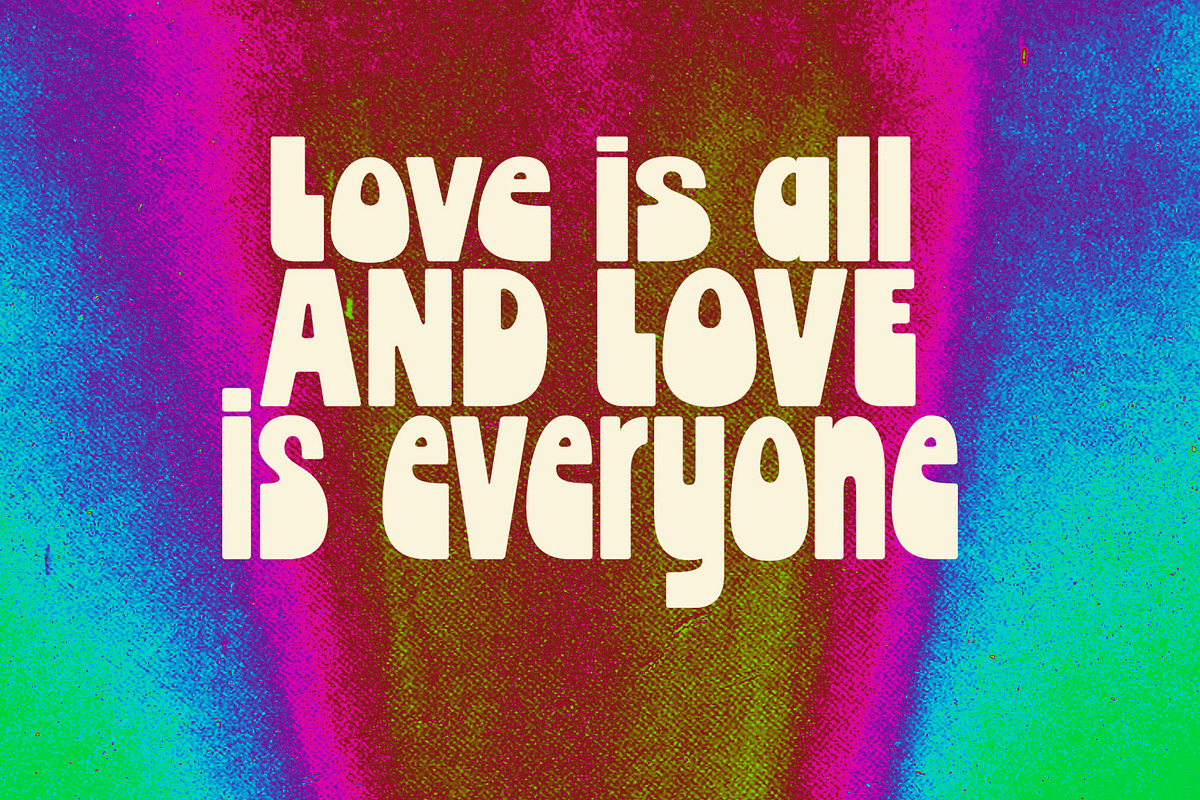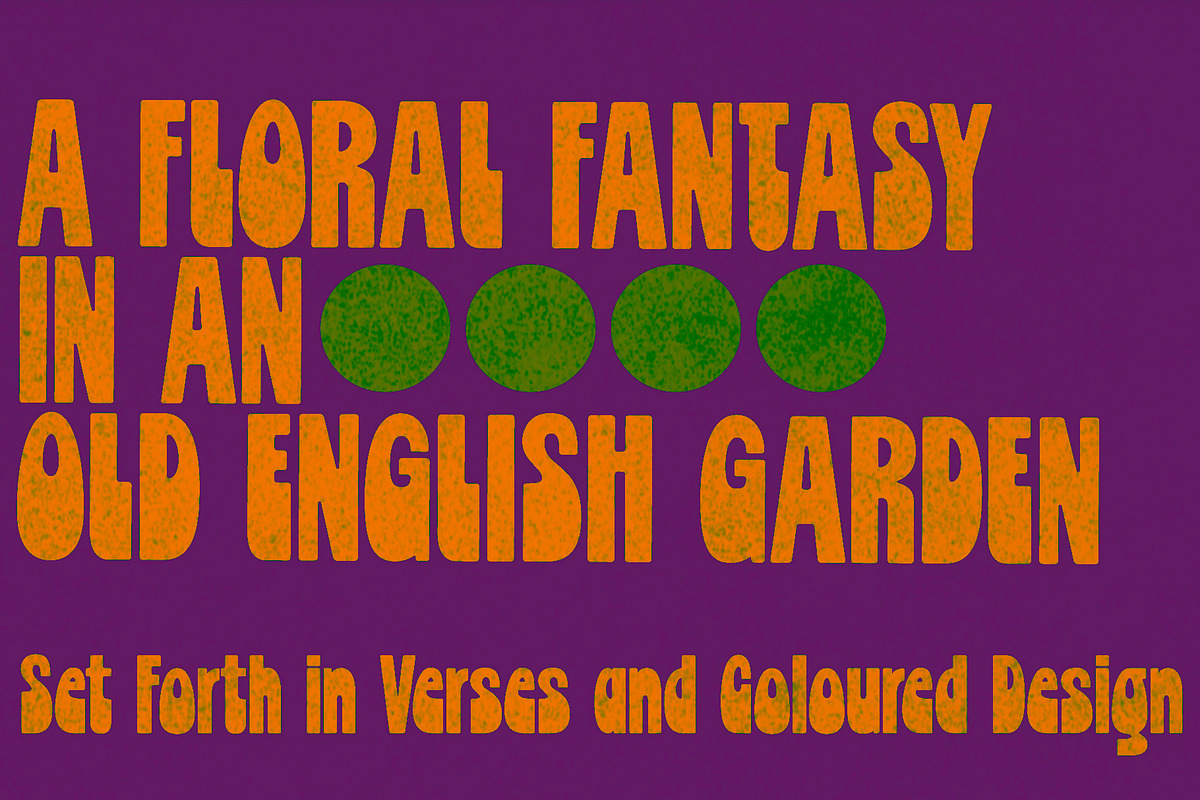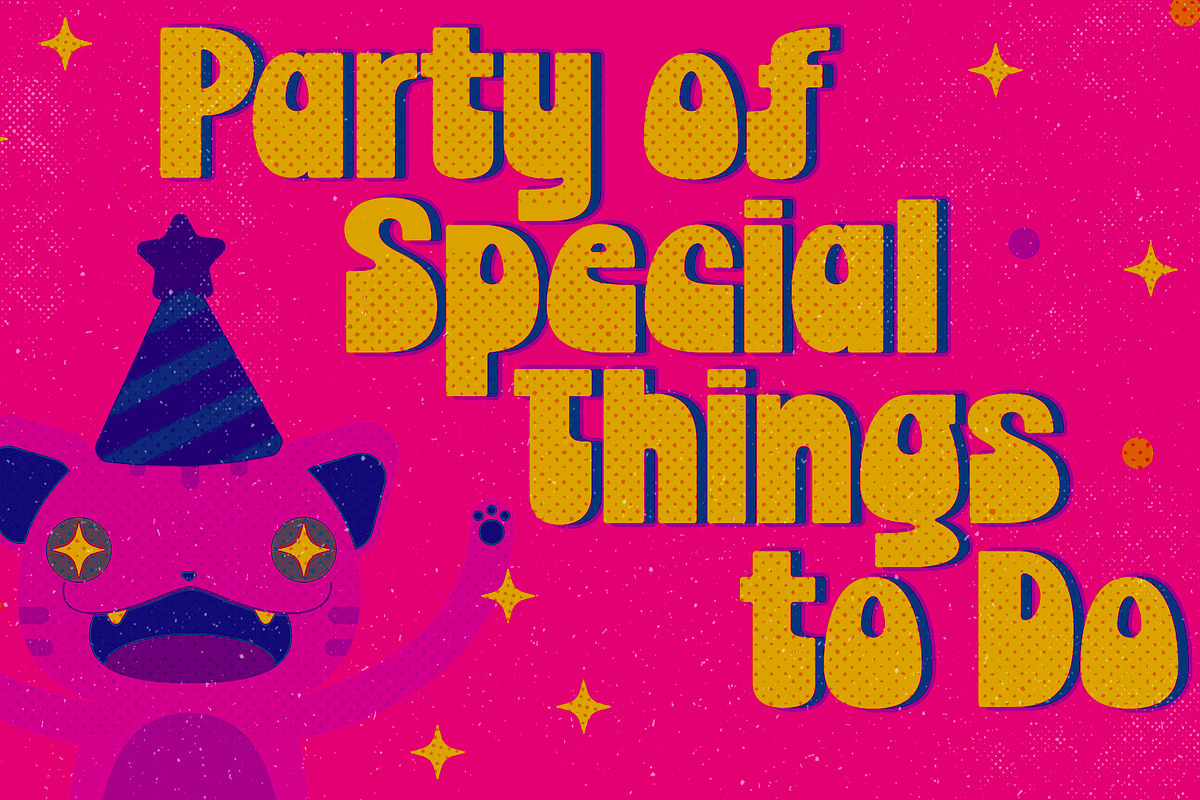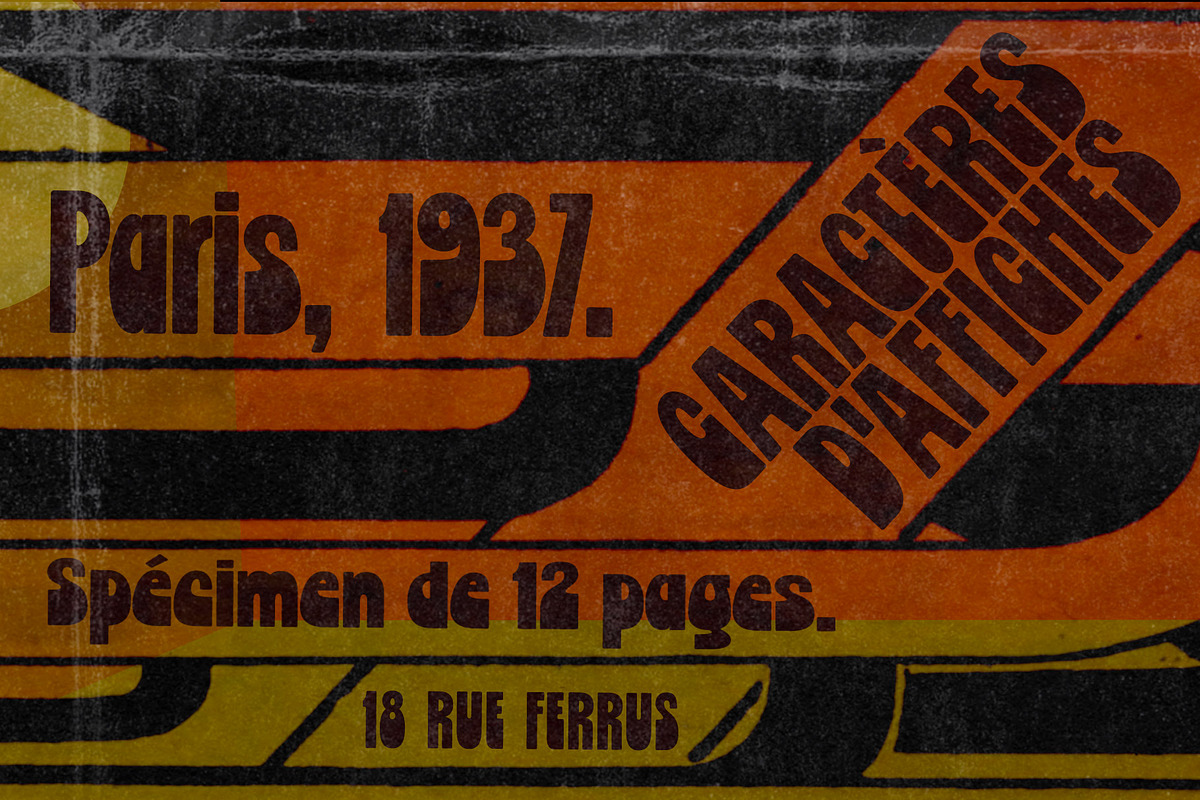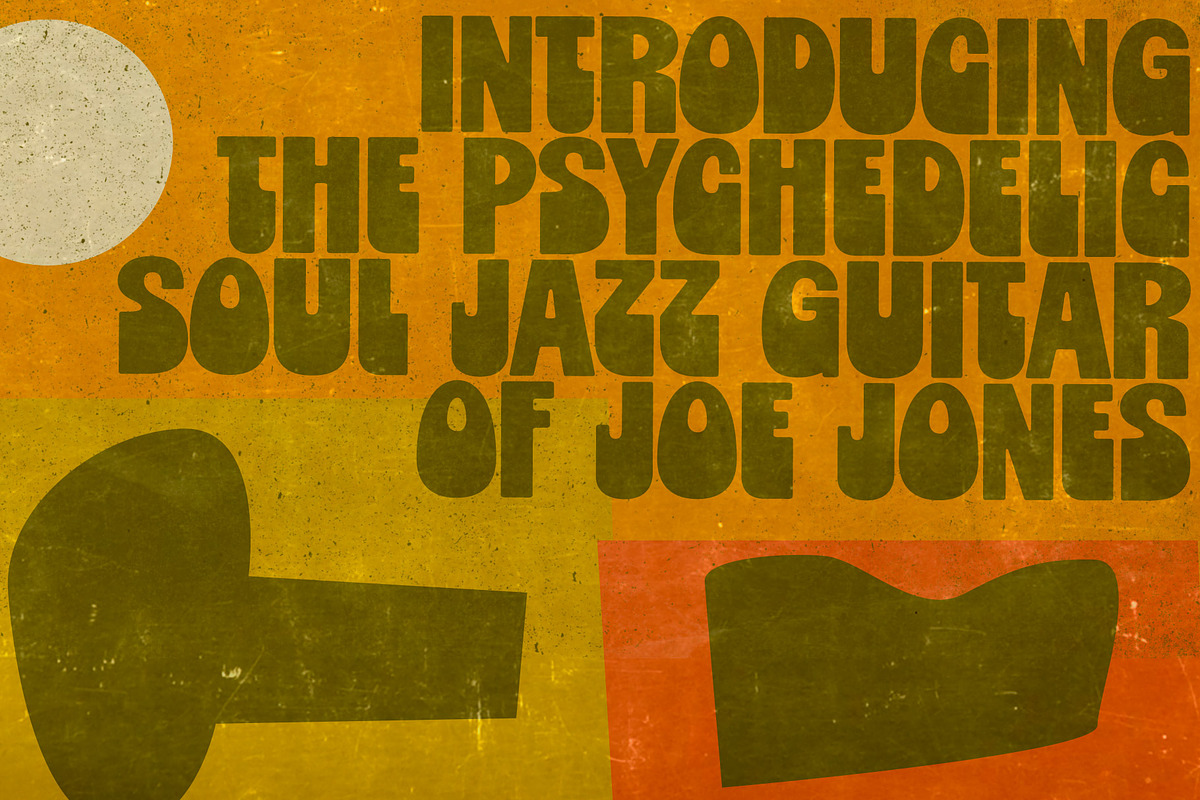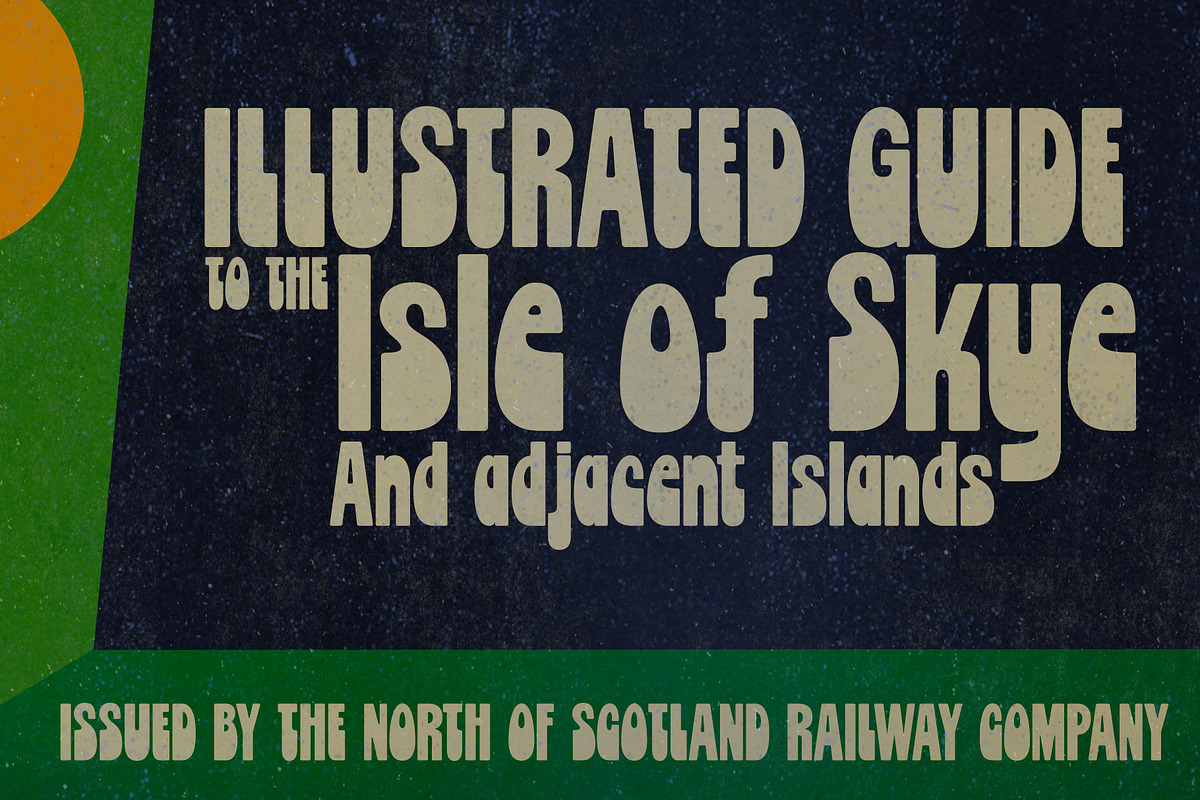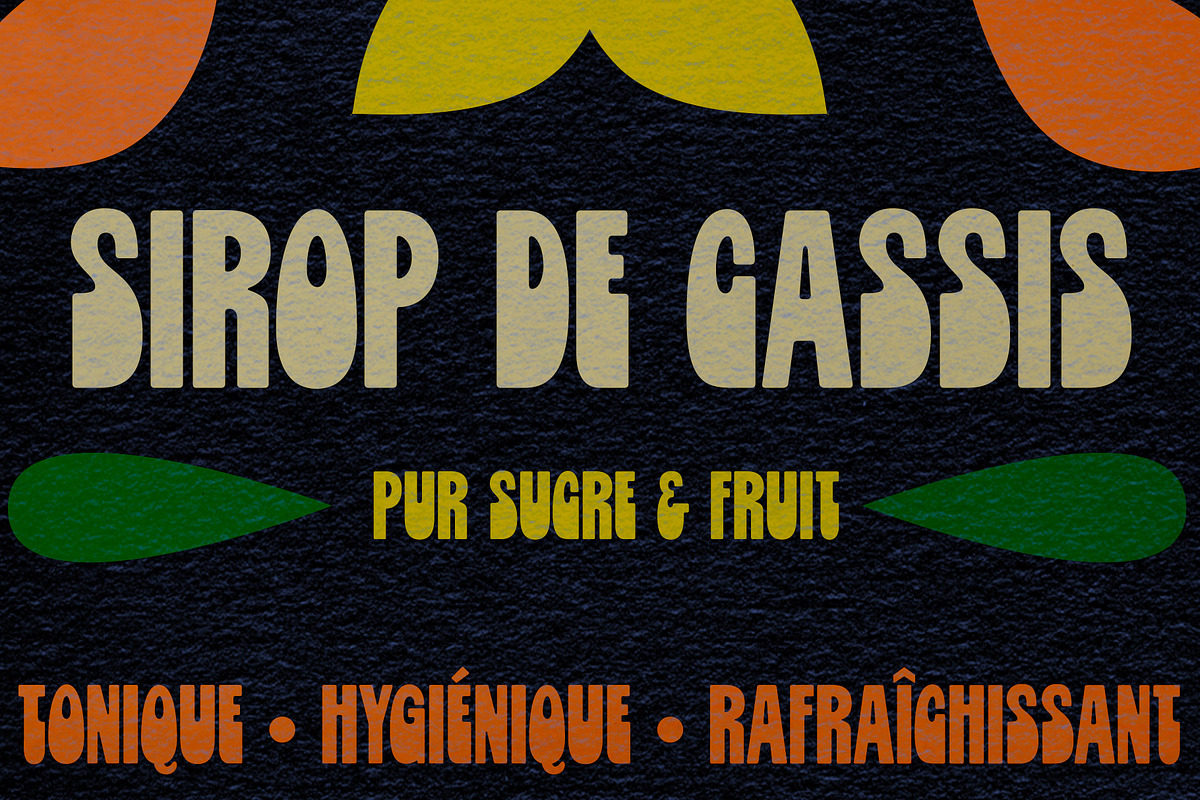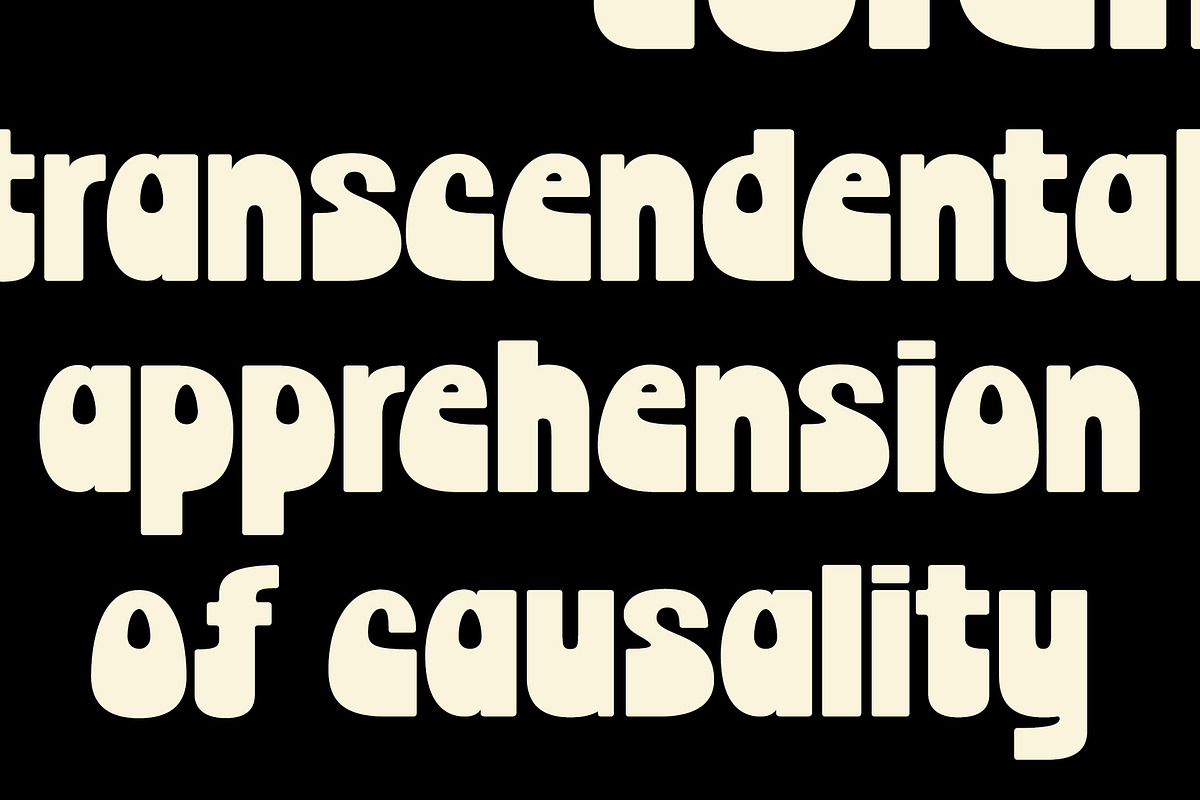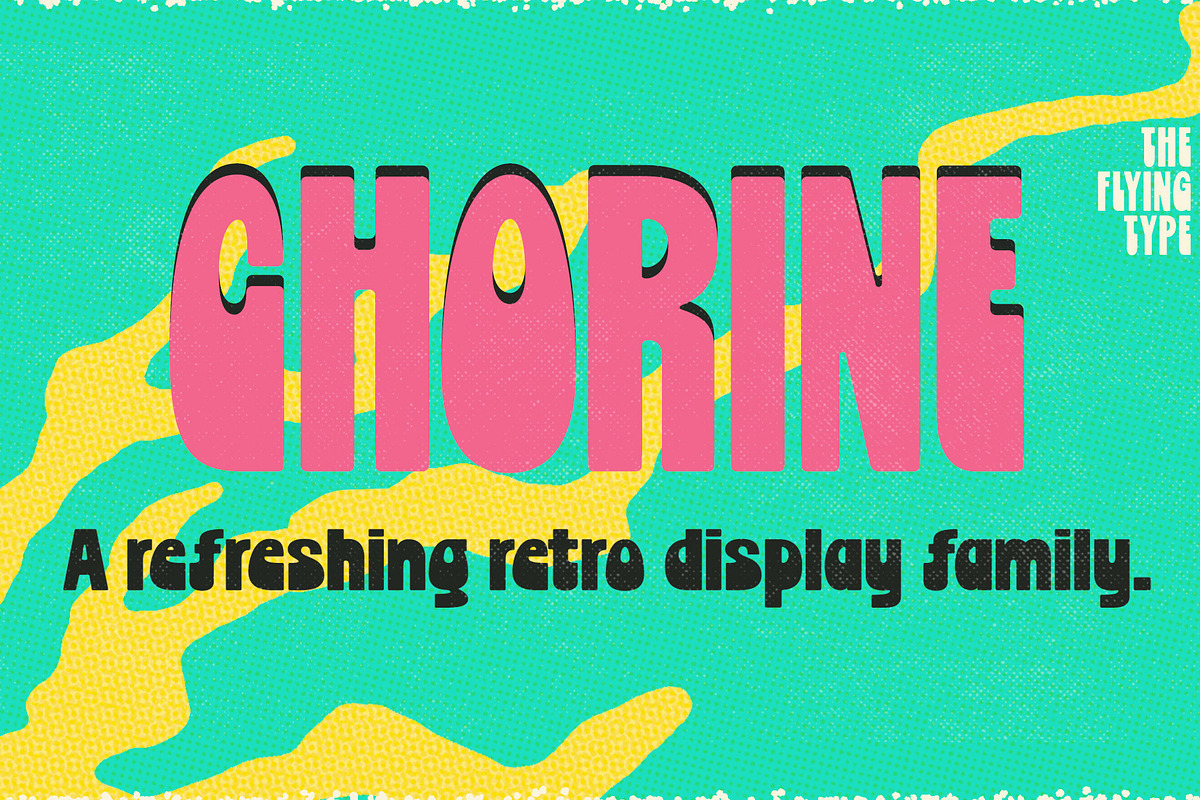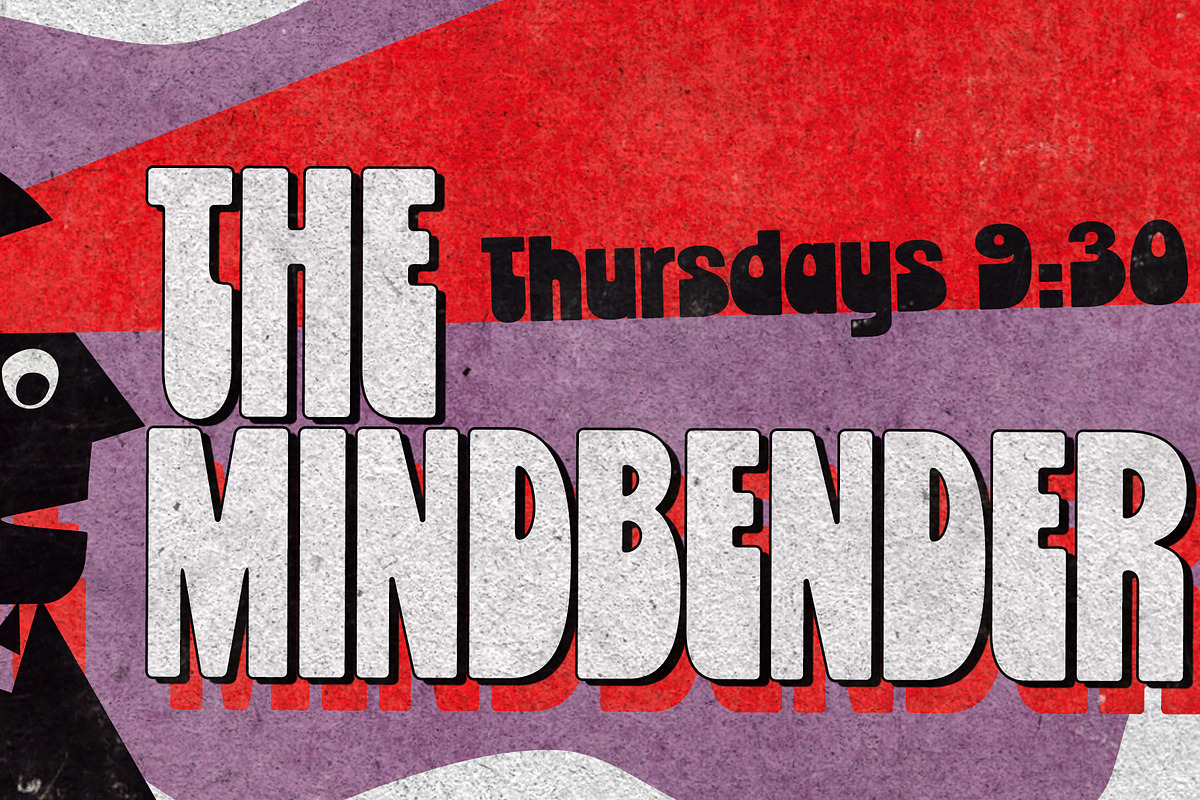
Chorine Family | Two retro fonts
Chorine is a retro face, impacting and comfy, available in two styles. It's great for vintage, nostalgic and psychedelic pieces yet also for creative contemporary designs. Chorine sounds sixties, sounds seventies, and sounds perfectly now. Play it!
LANGUAGE SUPPORT: Chorine supports 208 languages, including Bosnian, Czech, Danish, Dutch, English, Estonian, Finnish, French, Galician, German, Hawaiian, Hungarian, Icelandic, Indonesian, Italian, Norwegian, Polish, Portuguese, Romanian, Spanish, Swedish, Turkish, Xavante.